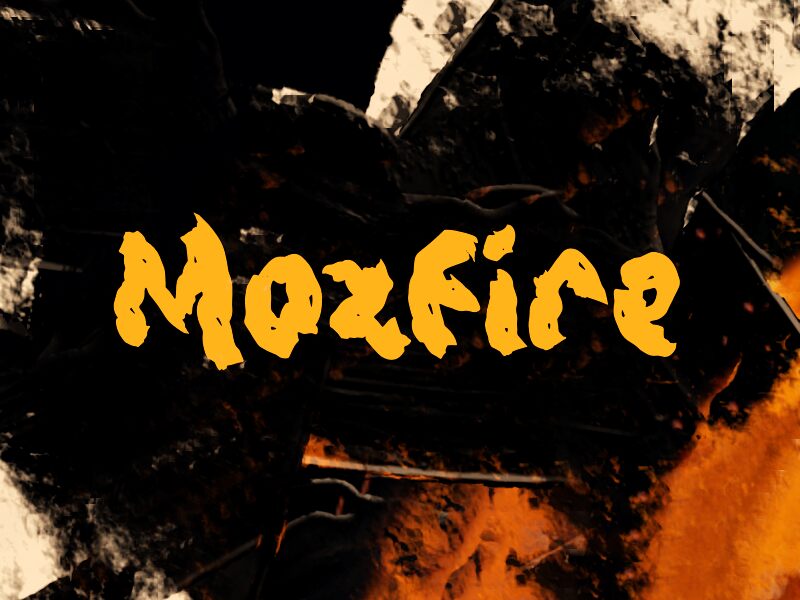
Mozfire, a free scorched-horror display font by Wep, looks like its letters were torn out of soot and flame. The rough, melted silhouettes and ragged edges give the whole font a feral, smoky energy, with each character feeling singed rather than neatly drawn.
That makes it a natural fit for horror posters, underground music flyers, game title cards, Halloween event graphics, and short cover lines where a free font needs instant menace. It also works for zine covers and logo-style wordmarks, because the letters read as bold shapes first and carry a raw, burned texture without needing extra effects.